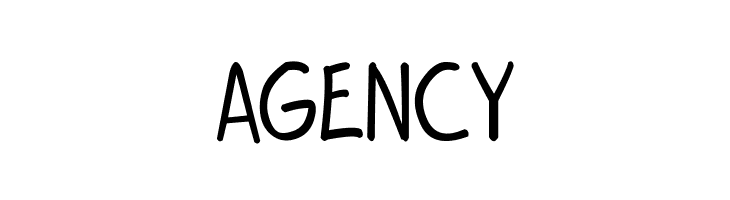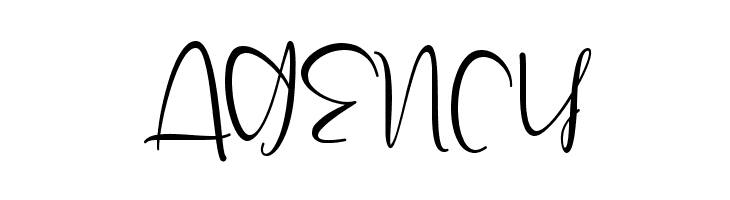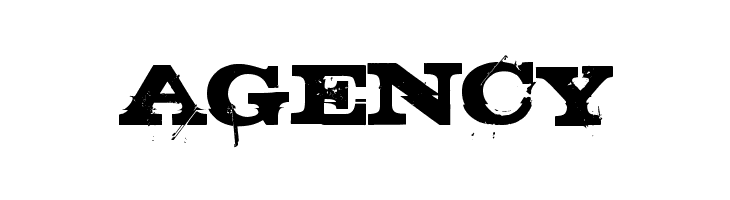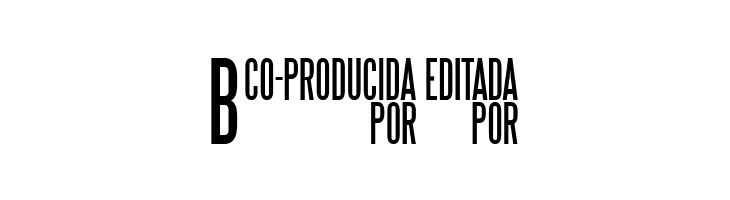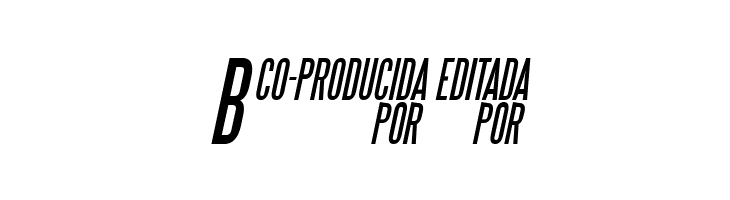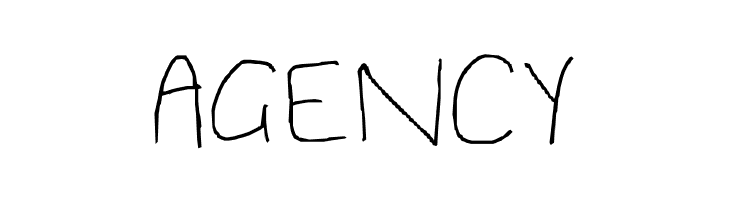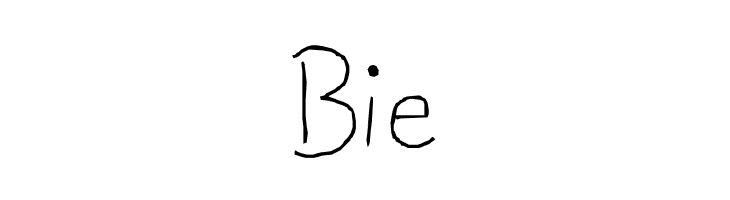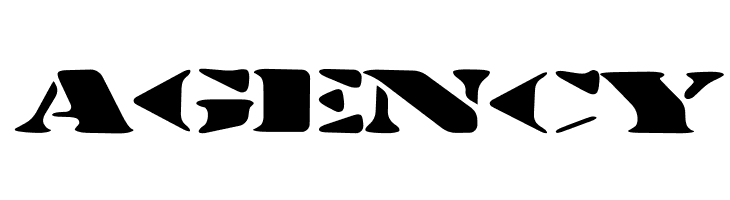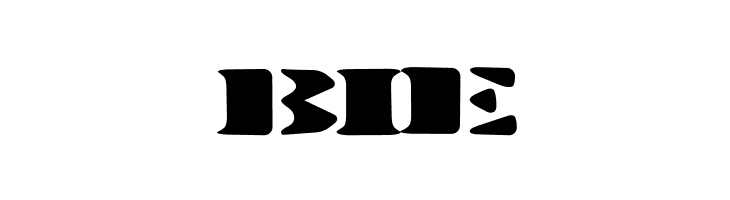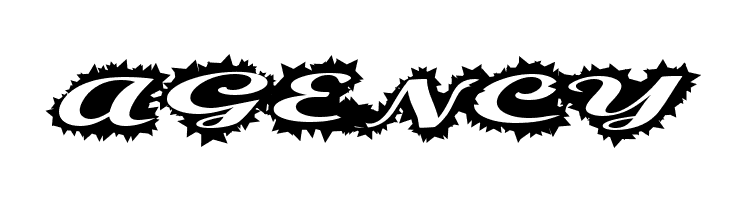
A bold, distressed font with a vintage, grunge texture.
A playful, hand-drawn font with rounded, comic-like characters.
A lively, cursive script font with interconnected letters and a dynamic style.
A bold, fiery font with sharp, jagged edges and a dynamic style.
A bold, stencil-style font with cut-out sections, perfect for impactful designs.
A bold, futuristic font with geometric and angular design elements.